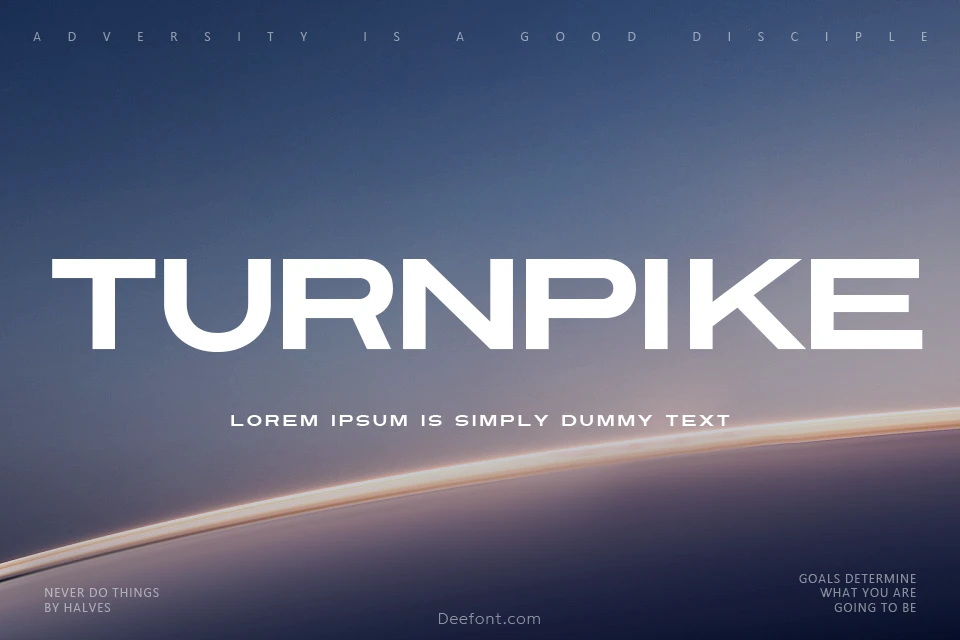
Turnpike Font
Turnpike Font is a distinctive typeface that captures the essence of 1960s automotive design. This extra-wide modern gothic font draws its inspiration from the classic dashboard lettering of vintage cars, evoking a sense of nostalgia for the golden age of American highways. Its bold, clean lines and spacious character width make it particularly effective for headlines, signage, and display purposes. The font’s retro aesthetic combined with its modern sensibilities creates a perfect balance between vintage charm and contemporary functionality, making it an excellent choice for projects that aim to capture the spirit of mid-century American design and road culture.